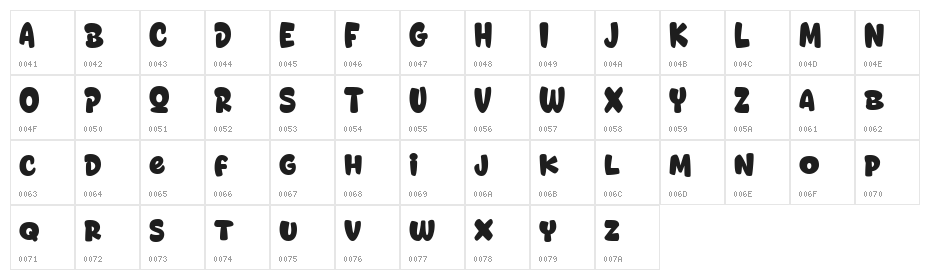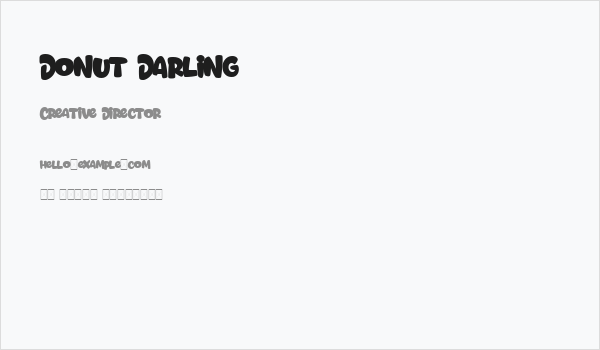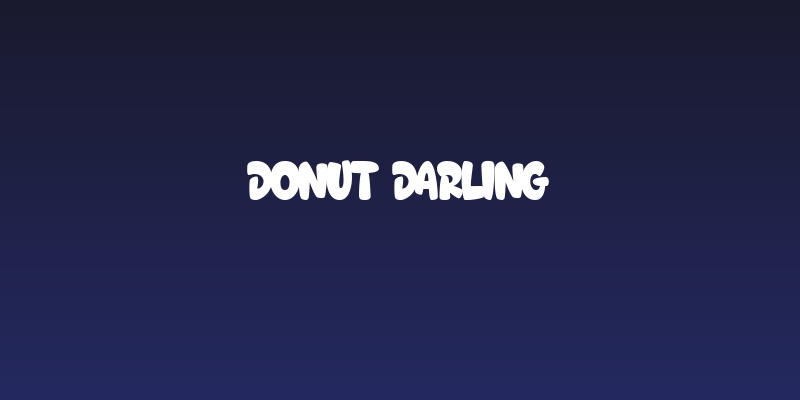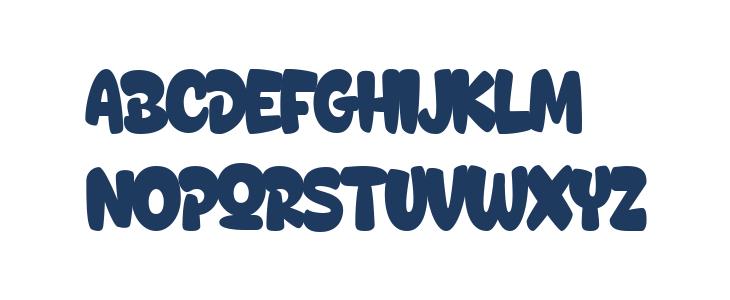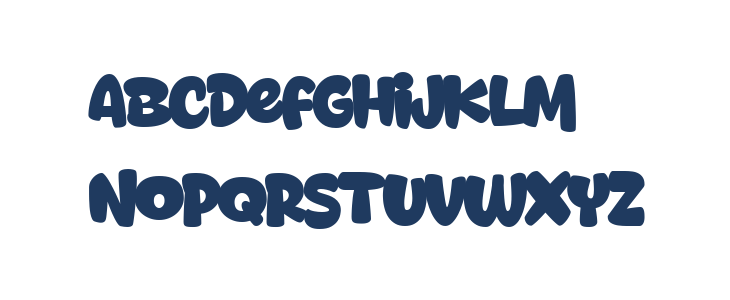
Donut Darling Font
Donut Darling Description
Bold, playful, rounded sans-serif font with a cartoonish style.
| Overall Style | Playful, Cartoonish |
| Use Case | Headlines, Children's materials, Logos, Posters |